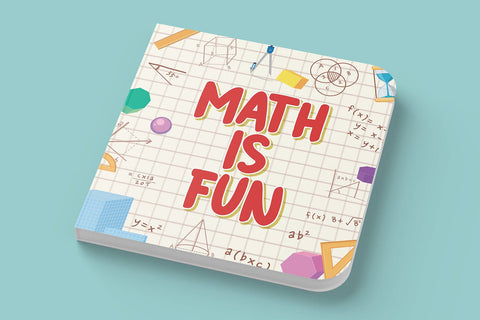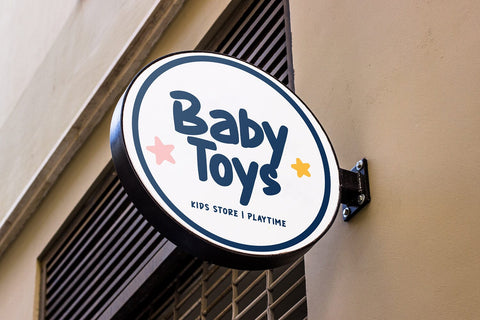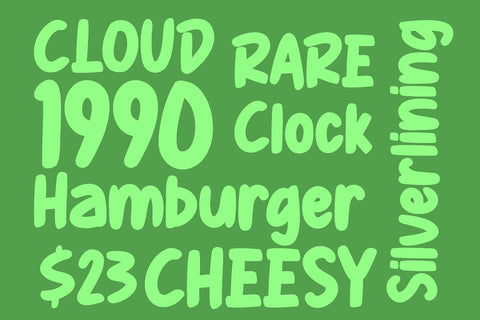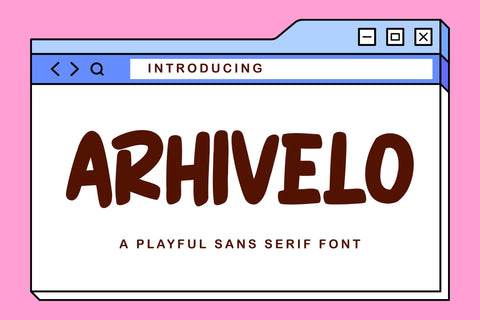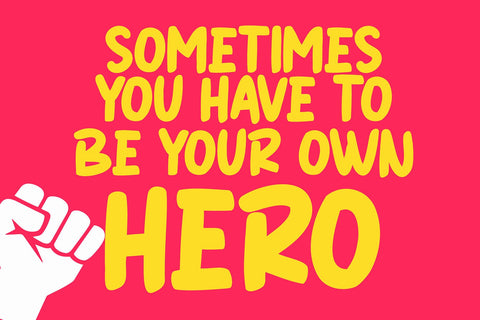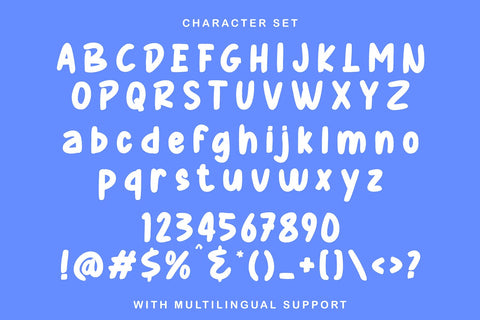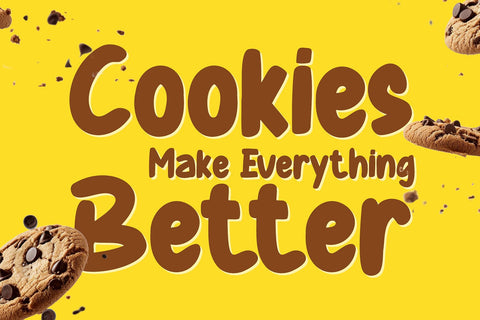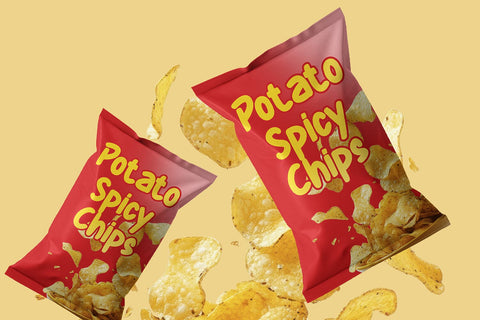
Arhivelo - Playful Sans Serif Font
Introducing Arhivelo - Playful Display Font
Arhivelo is a playful display font designed to bring fun and personality to your creative projects. Its bold letterforms and smooth curves create a friendly and cheerful look that instantly grabs attention.
This font works perfectly for logos, branding, posters, social media graphics, packaging, book covers, headlines, and creative typography. Arhivelo delivers a lively and modern feel that makes any design look more engaging and expressive.
With its unique playful character and easy readability, Arhivelo is a great choice for designers who want to add a joyful and creative touch to their work.